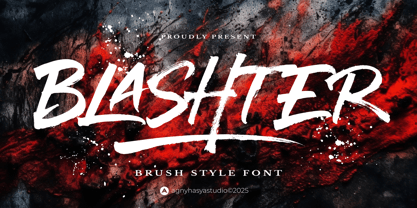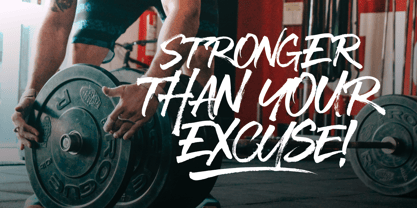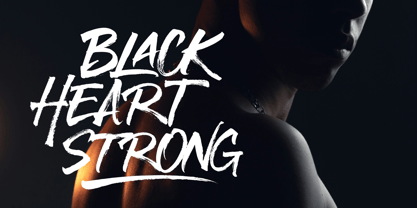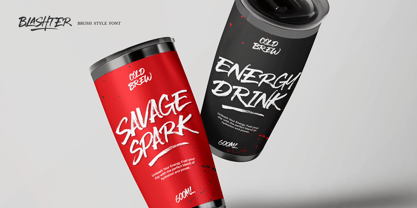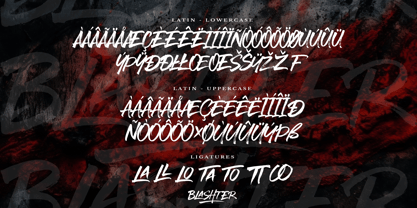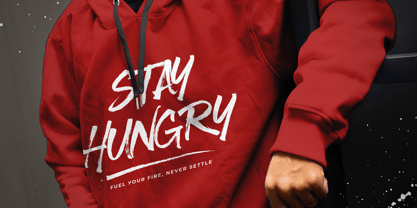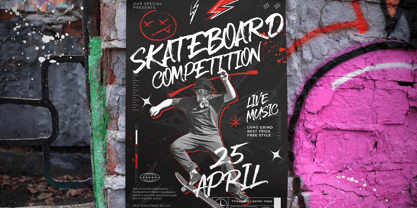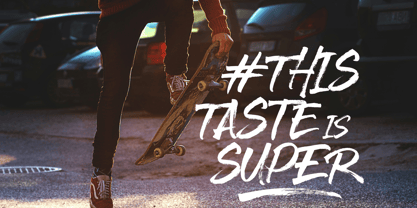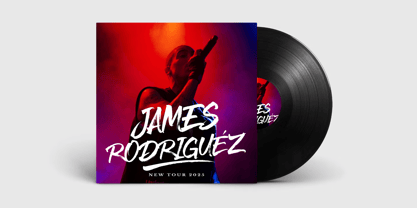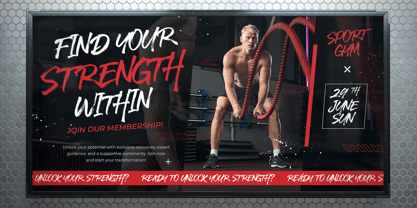
Blashter
por Agny Hasya Studio
La familia tipográfica Blashter fue diseñada por Firman Maulana y publicada por Agny Hasya Studio. Blashter contiene 1 estilos.
Blashter is a brush script font that embodies the raw energy of street culture and the spontaneous flow of hand-drawn marker lines.
With its rebellious charm and urban edge, it adds personality and impact to any design.
Full of momentum and character, Blashter reflects the essence of casualness and freestyle lettering, exuding confidence and rhythm.
It also includes multilingual support, making it a go-to font for artists and designers around the world.
It is perfect for projects such as logos, creative branding, posters, digital or print visuals, and more.
Blashter